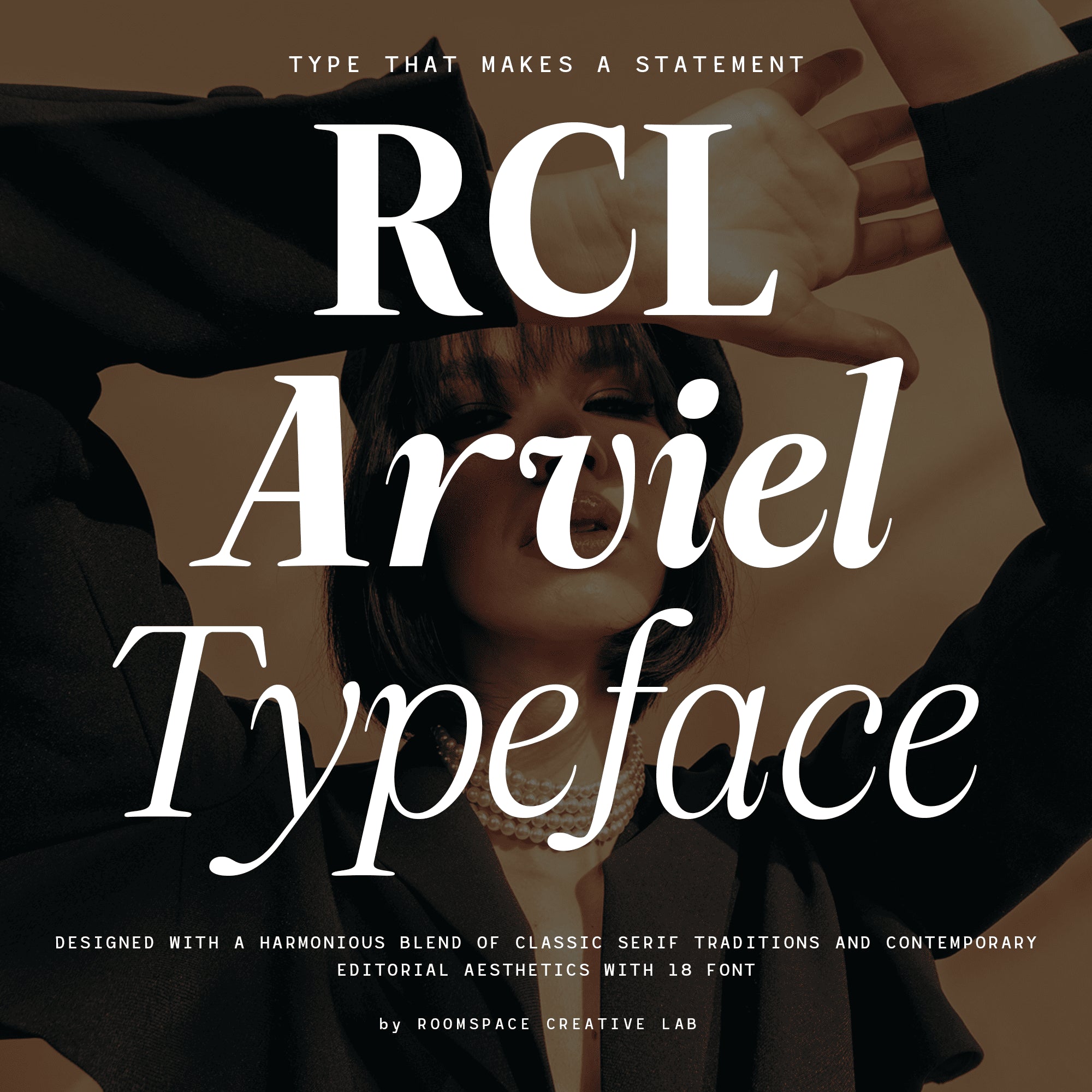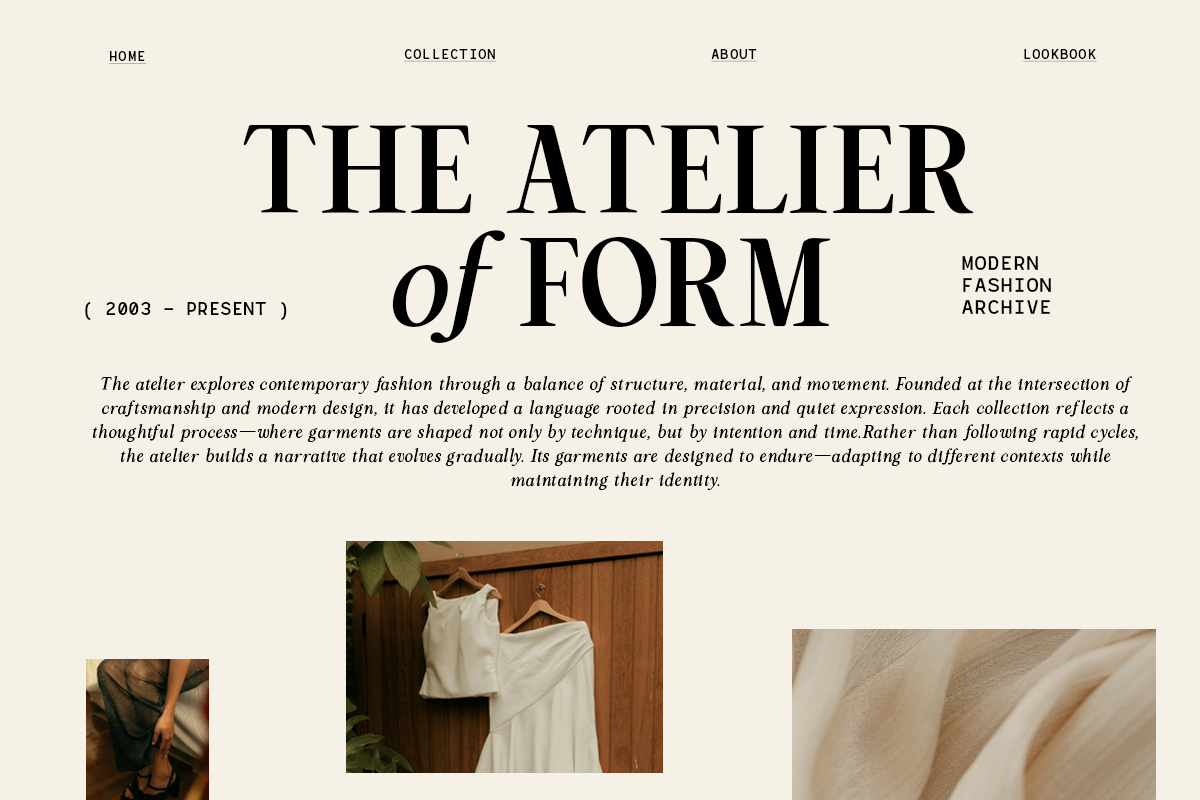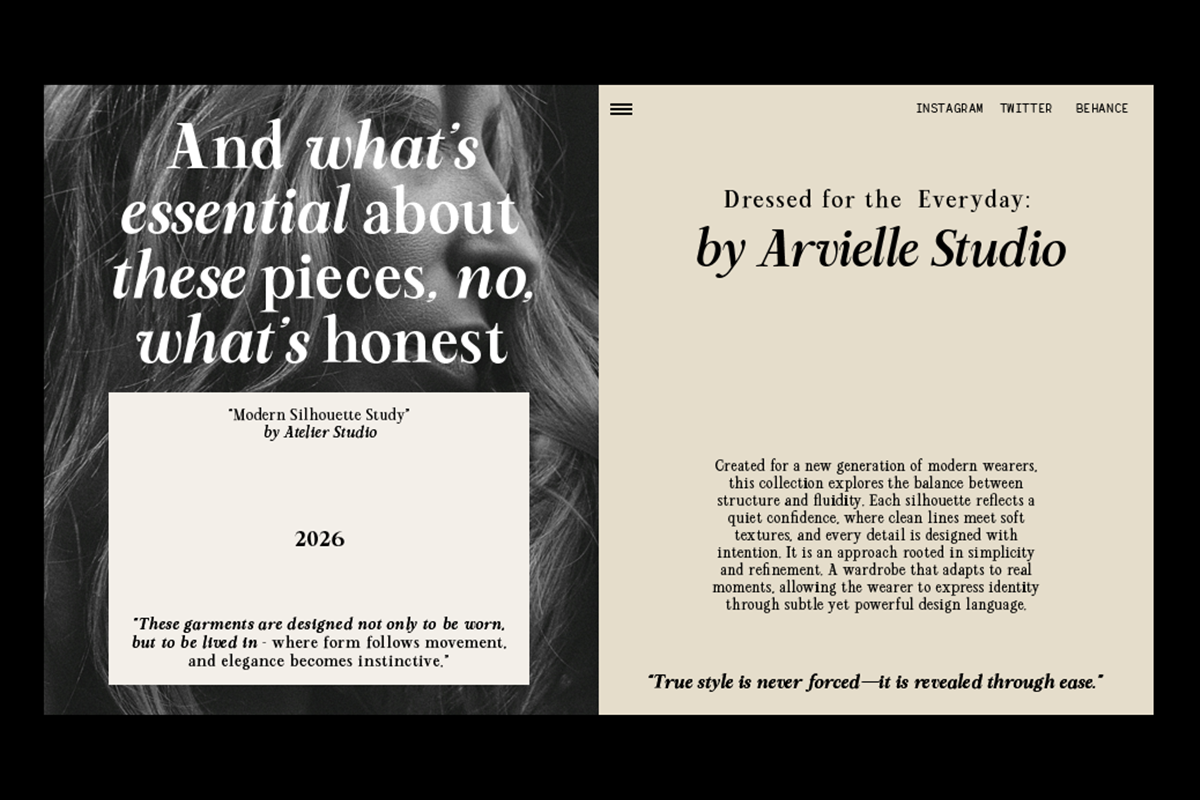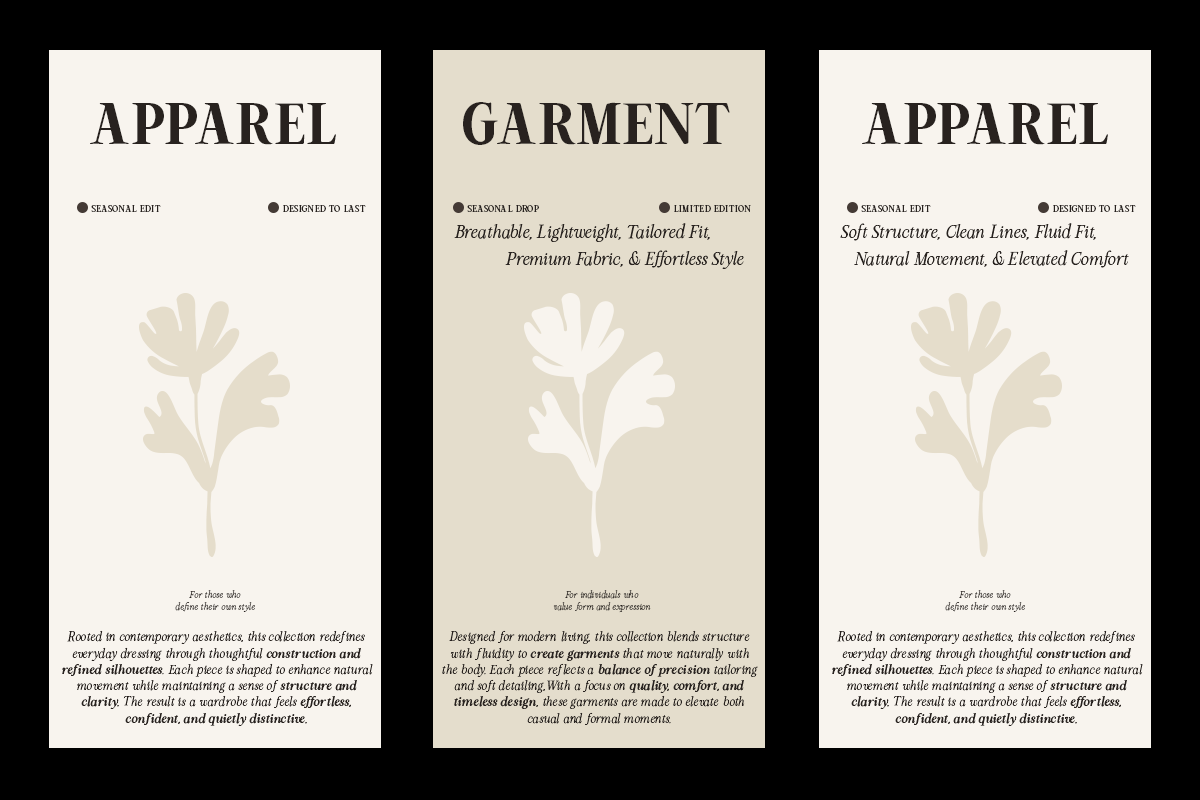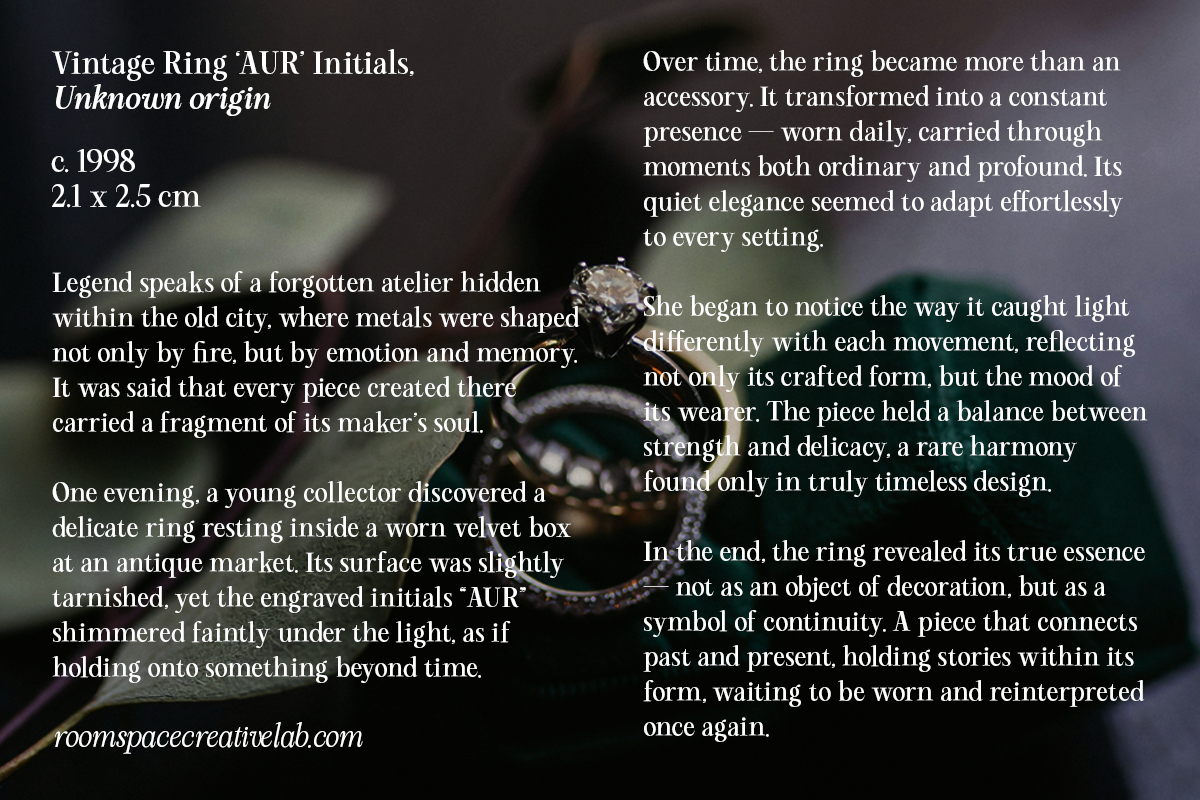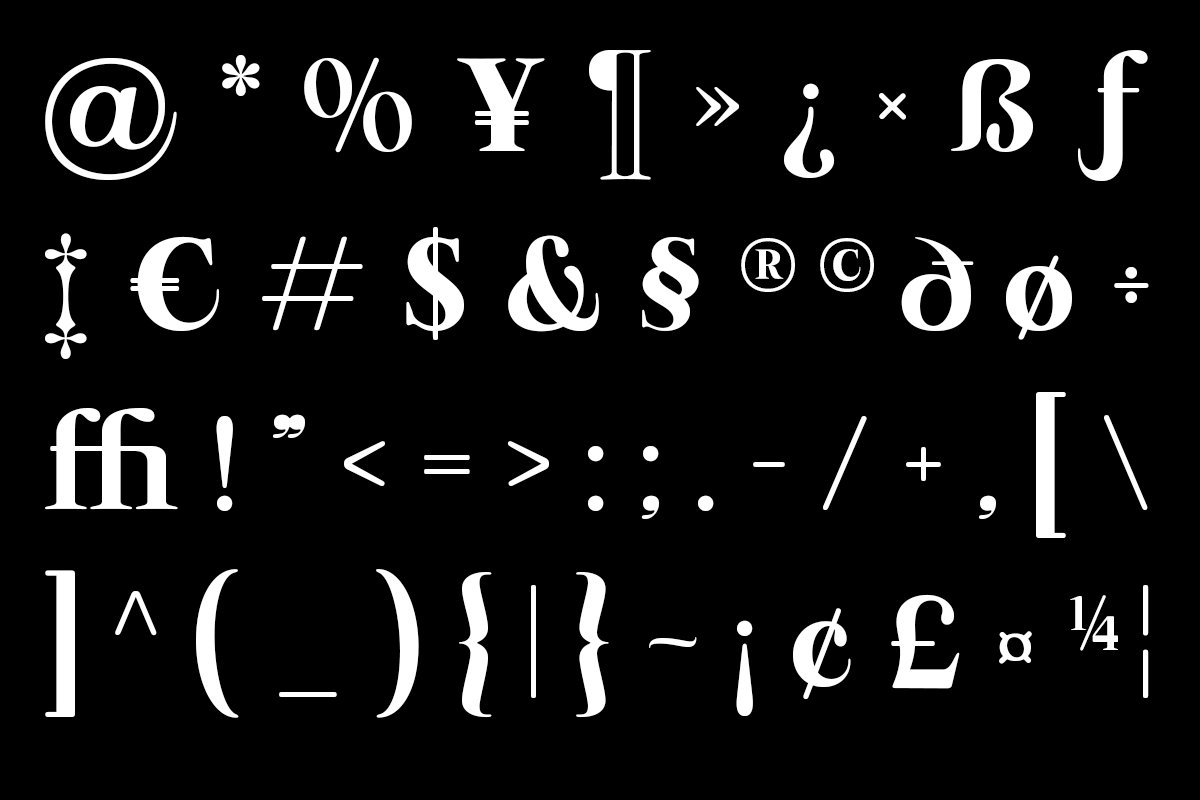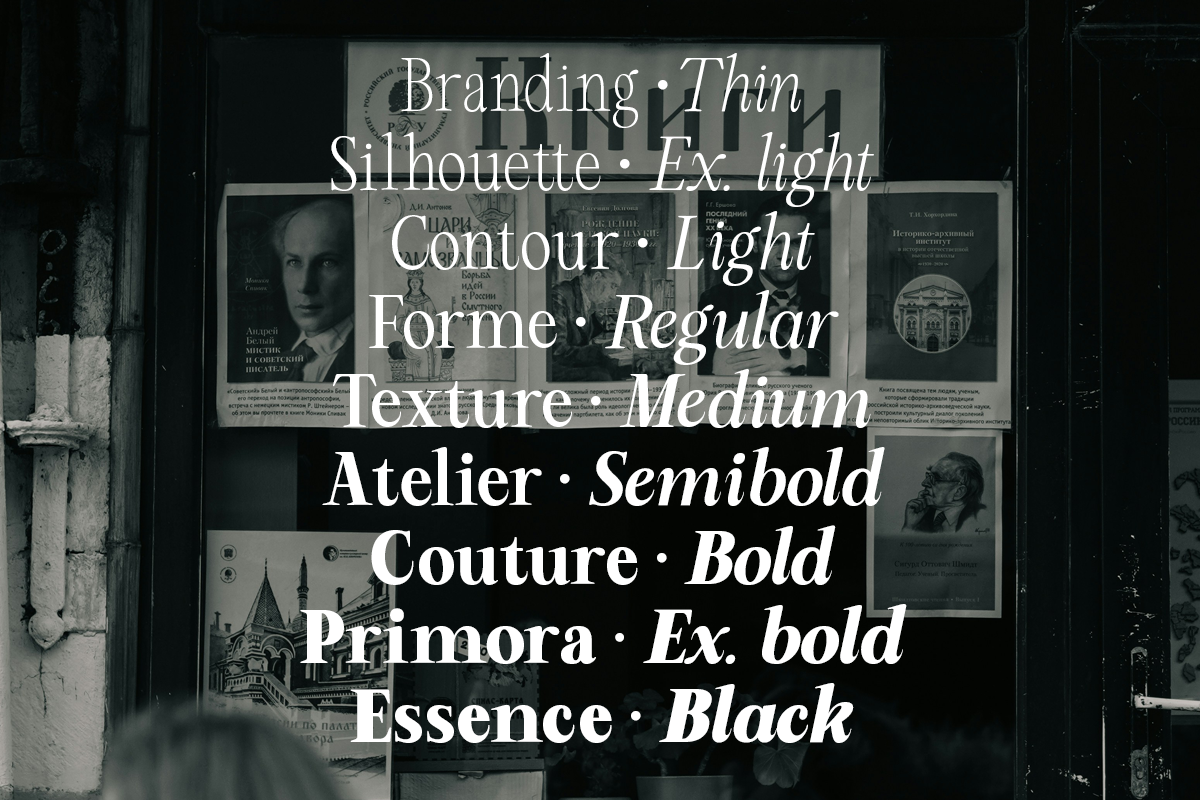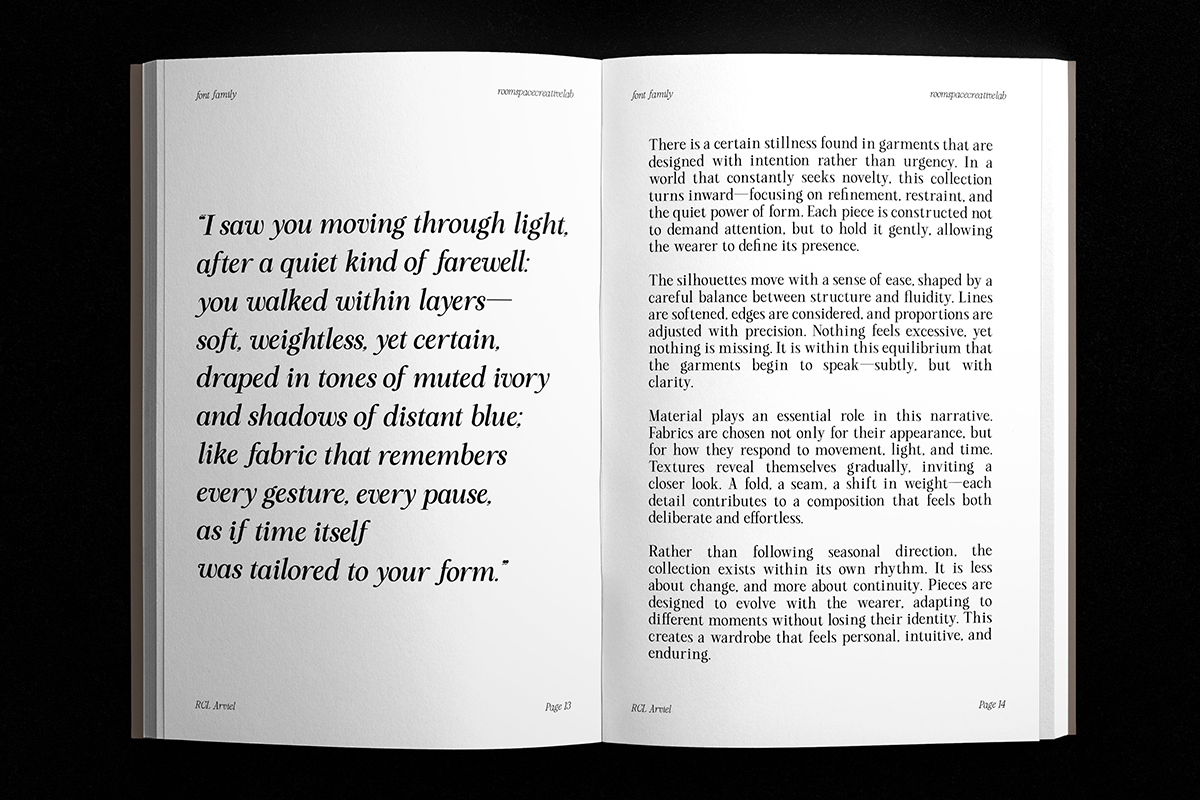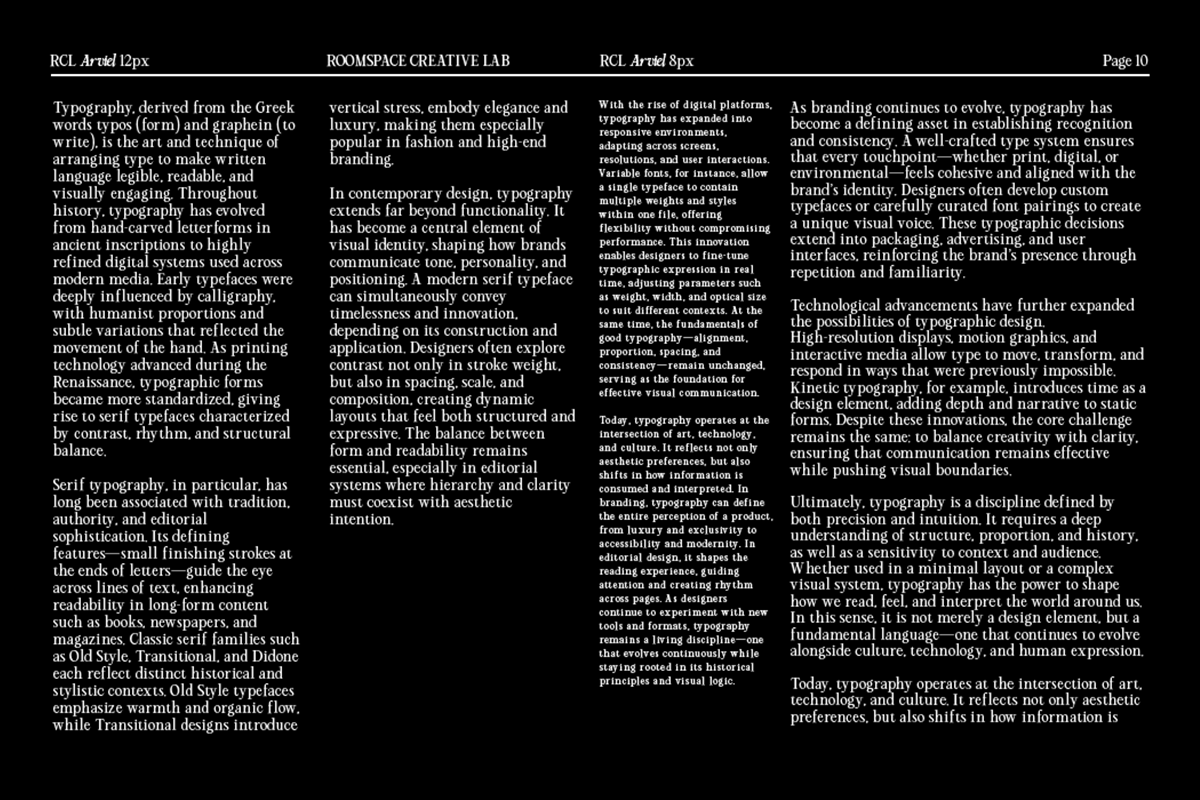
RCL Arviel – Modern Editorial Serif Font Family
RCL Arviel is a modern serif typeface crafted to create strong visual impact through elegant contrast and expressive form. Defined by its sculpted serifs, dynamic curves, and editorial character, Arviel balances classical sophistication with contemporary boldness. With 18 weights available, this serif family offers flexibility for both dramatic headlines and refined layouts. It is designed for designers who want to create powerful branding, fashion visuals, and high-end editorial compositions.
• 18 font weights (Thin to Bold)
• High-contrast serif design
• Uppercase & lowercase
• Multilingual support
• Professional kerning & spacing
Perfect For : Luxury branding, Fashion editorials, Magazine headlines, Logo design, Creative direction, Packaging design and Digital campaigns.
RCL Arviel is a modern serif font family featuring 18 weights from Thin to Bold, designed with high-contrast sculpted serifs and dynamic curves. It includes OTF and TTF formats, supports multilingual characters, and offers professional kerning and spacing for versatile typography applications.